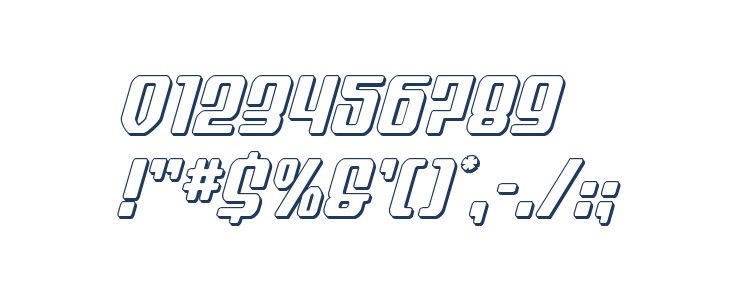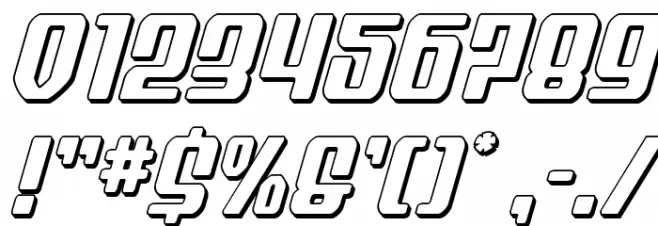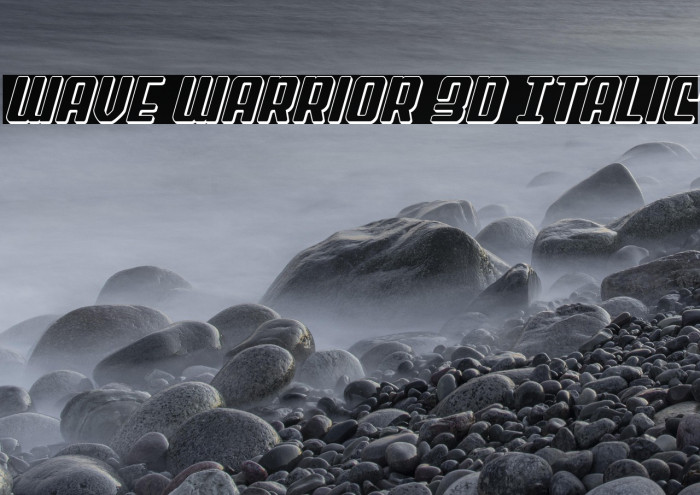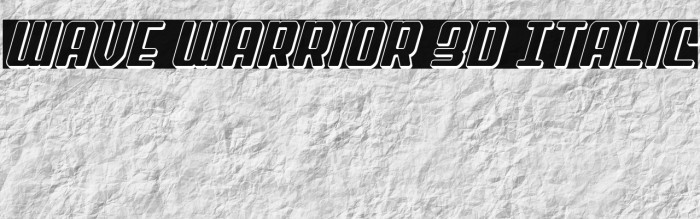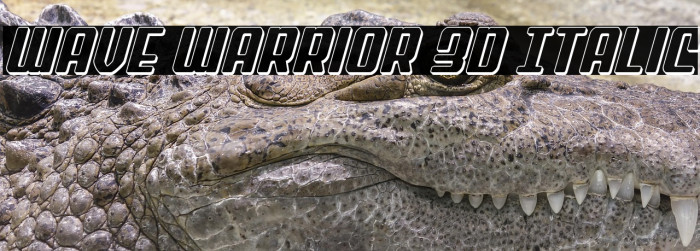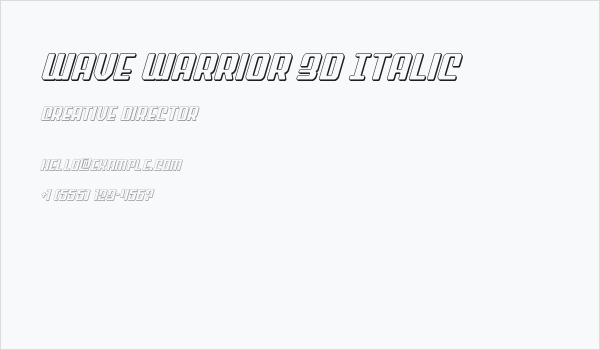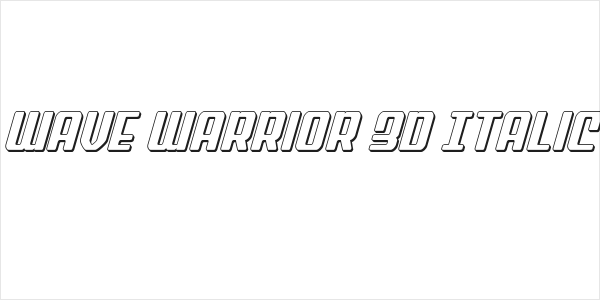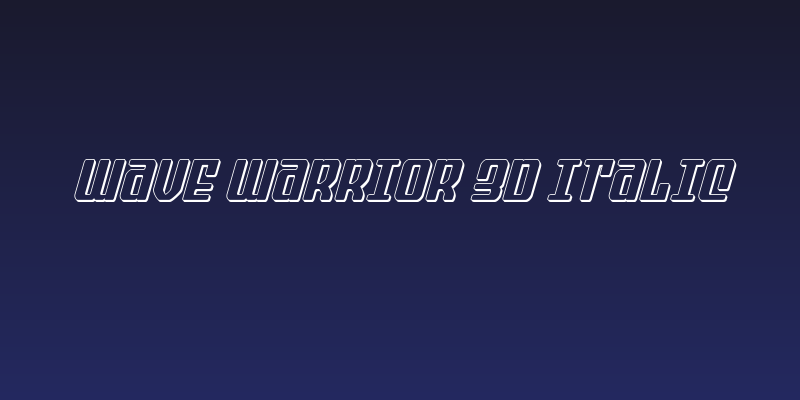
Wave Warrior 3D Italic Font
Wave Warrior 3D Italic Description
This font features a bold, three-dimensional design with an italic slant, giving it a dynamic and futuristic appearance. The characters are outlined, creating a sense of depth and movement. The geometric shapes and sharp angles contribute to its modern and edgy style. The uppercase and lowercase letters maintain a consistent structure, while the numbers and special characters complement the overall aesthetic. This font is ideal for projects that require a strong visual impact and a contemporary feel.
| Proposed Projects | Ideal for video game titles, sci-fi movie posters, tech branding, and sports team logos. |